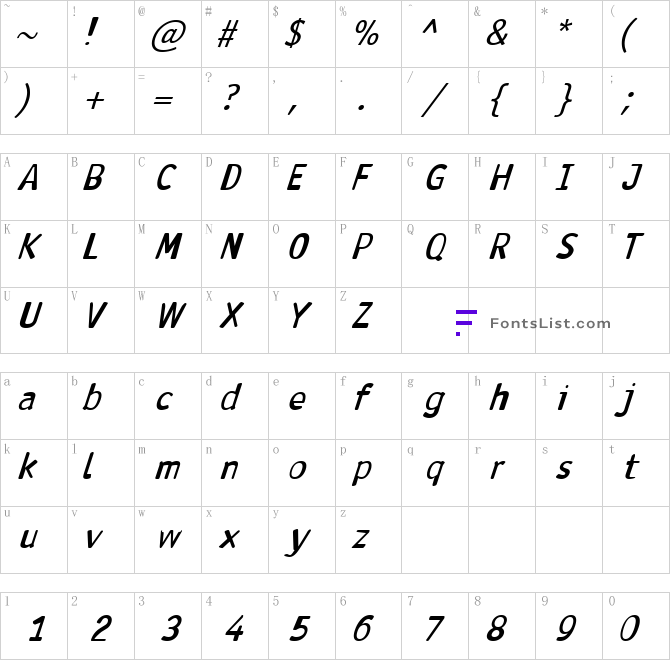
- Font Name:Antaviana
Antaviana-BoldItalic-copy-3-.ttf is a very beautiful artistic font, Antaviana-BoldItalic-copy-3-.ttf is widely used in the design and printing of various books and pictures,Antaviana-BoldItalic-copy-3-.ttf has a strong visual impact,Antaviana-BoldItalic-copy-3-.ttf is a commonly used font in newspapers, magazines and books, and is used in posters, e-commerce Poster design, store design, logo design, font design and other fields.Antaviana-BoldItalic-copy-3-.